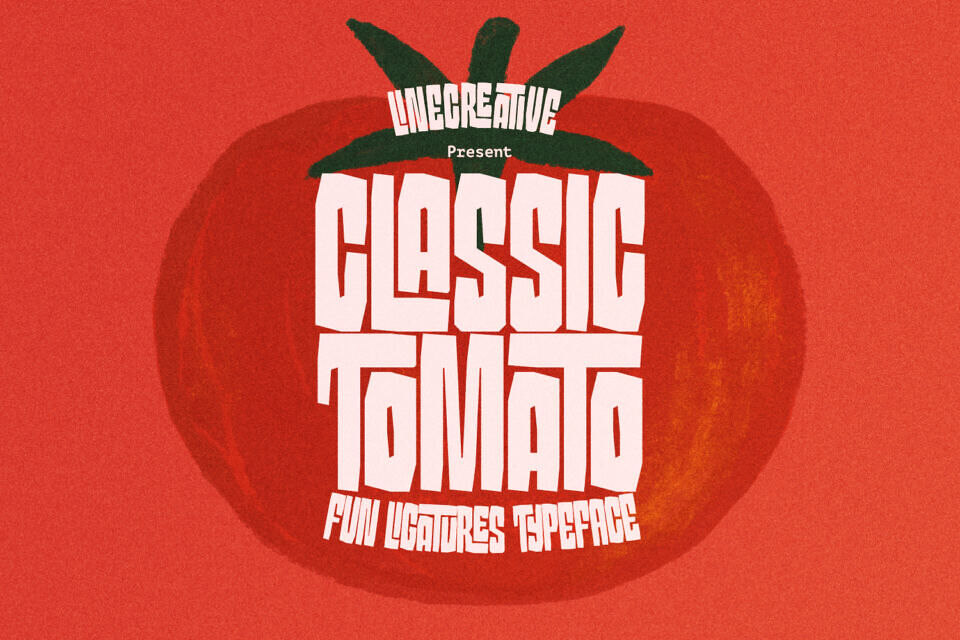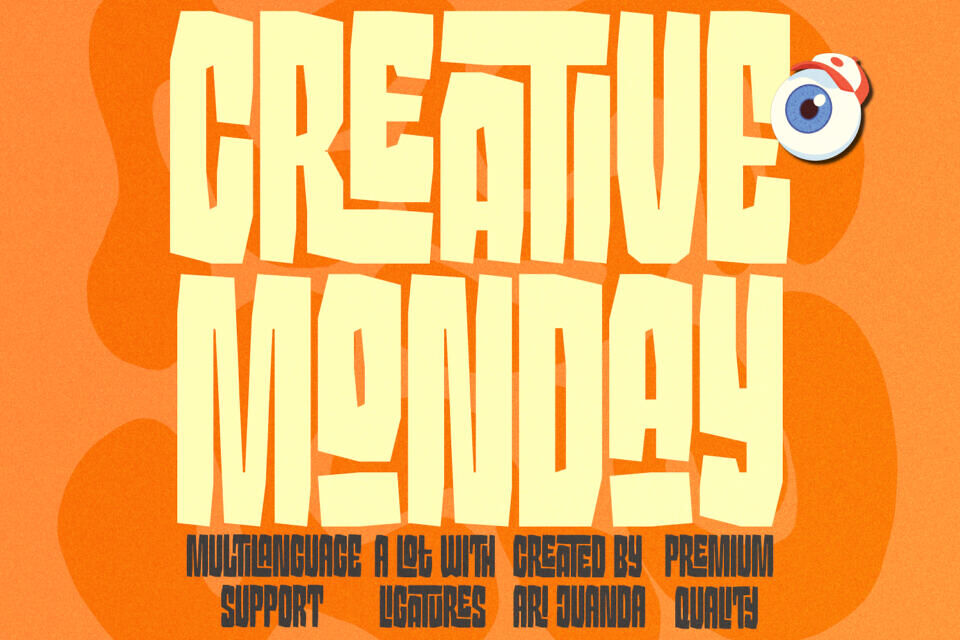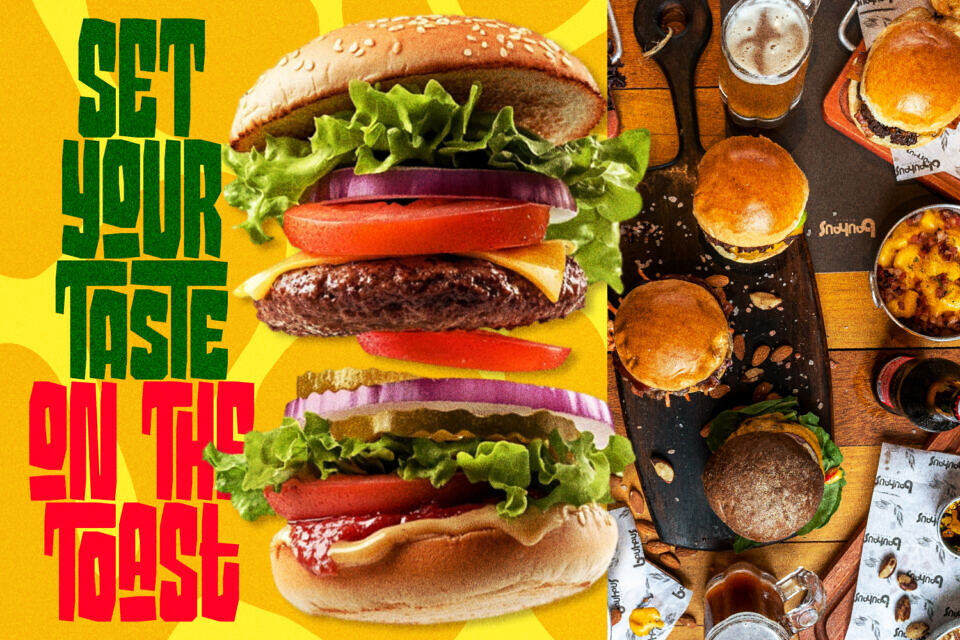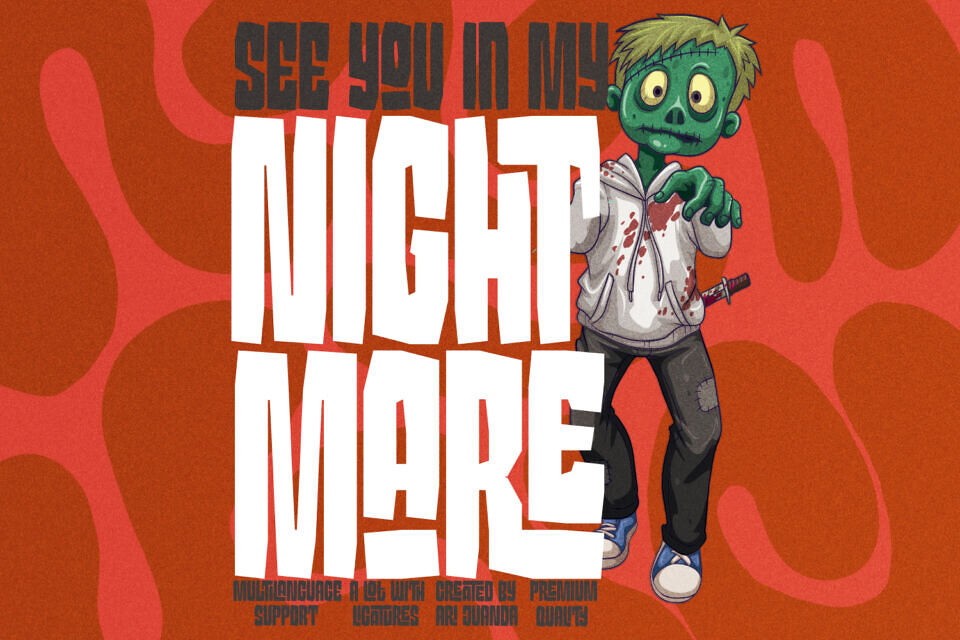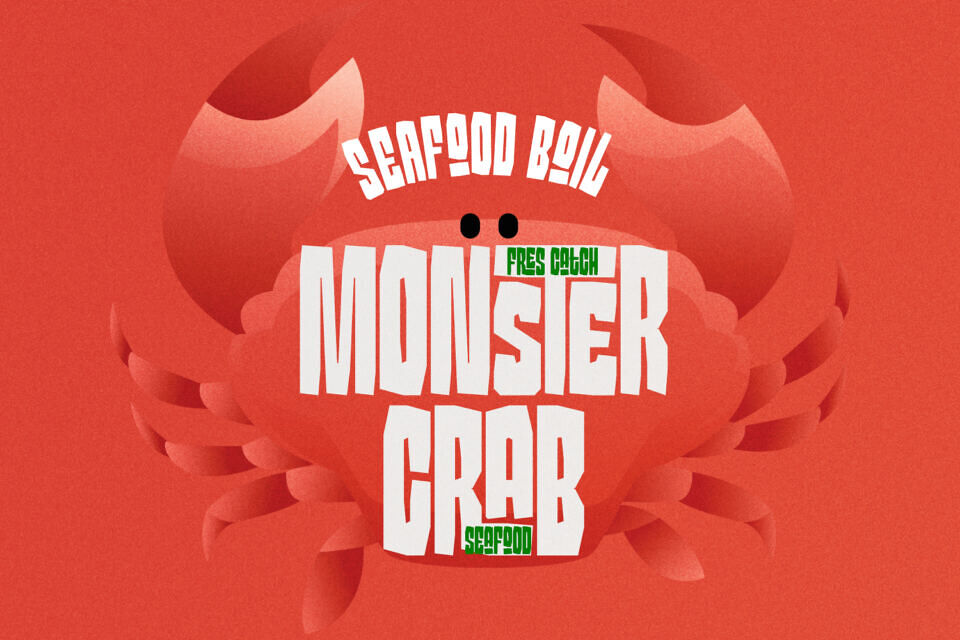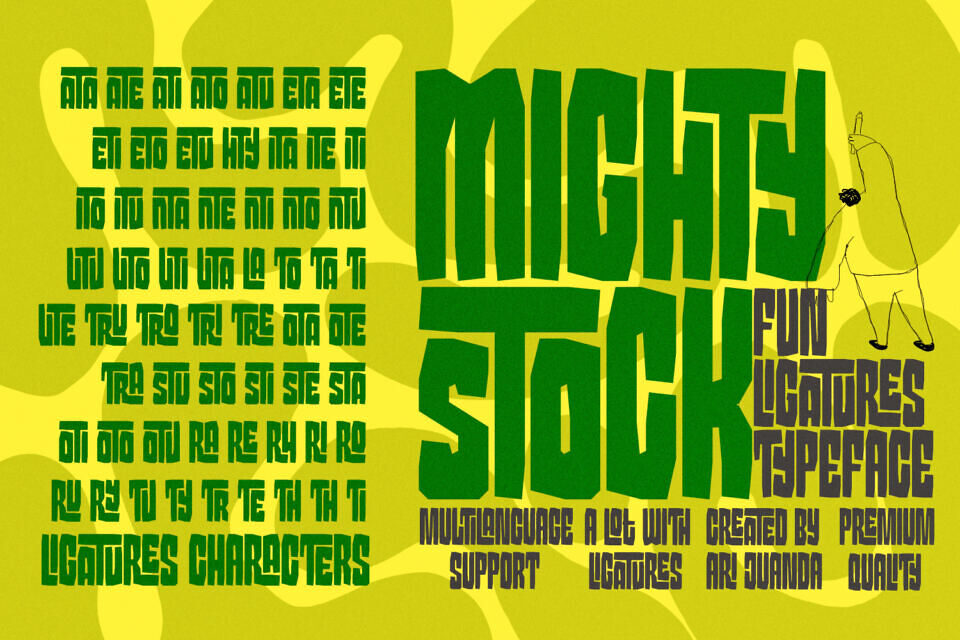
Classic Tomato Font
Classic tomato is a bold and expressive display typeface designed to deliver a strong and eye-catching visual impact. With its thick, solid letterforms and slightly playful proportions, this font is perfect for designs that aim to stand out and grab attention instantly, such as posters, branding, headlines, and merchandise.
One of the key features of Classic tomato is its rich set of ligatures, allowing letters to connect in unique and creative ways. Inspired by fun and quirky themes, Classic tomato also carries a playful character as seen in its visual presentation, including cartoon-style elements like the zombie illustration. This adds a layer of entertainment and uniqueness, making the font especially suitable for creative, gaming, horror-light, or youth-oriented designs.